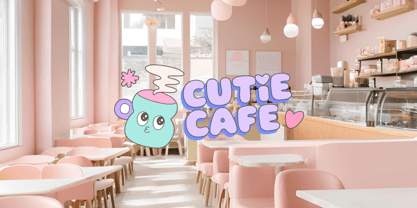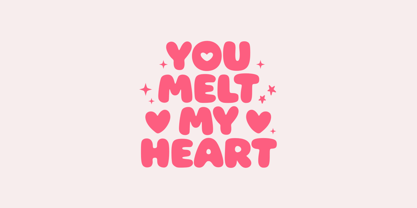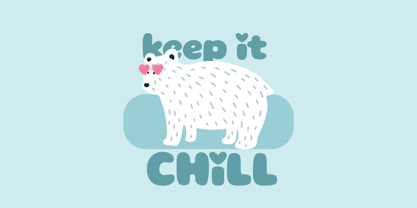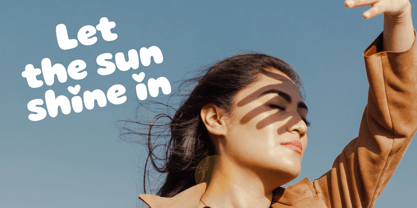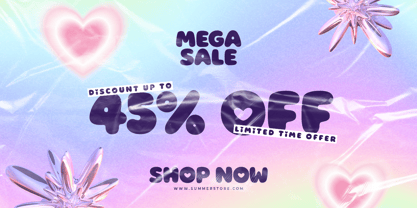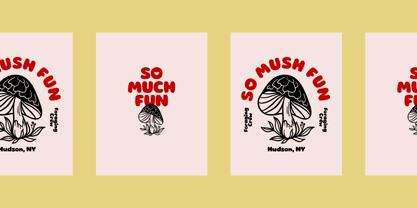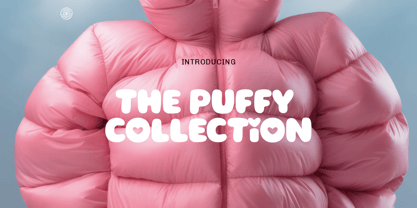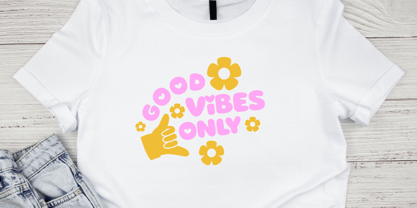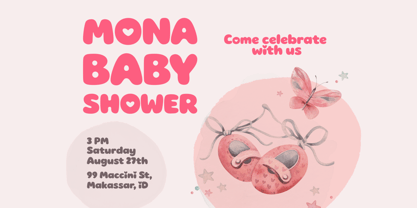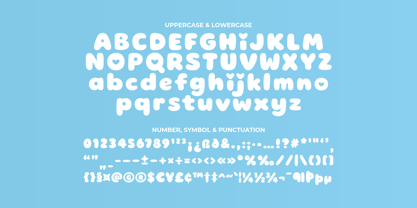
Bubble Hugshy
The Bubble Hugshy Font Family was designed by Andi Syahdang, Ainun Jinan and published by Jinan Studio. Bubble Hugshy contains 1 styles. More about this family
Bubble Hugshy is a cute and playful bubbly display font crafted to bring fun, warmth, and charm into your creative projects. Featuring soft, rounded, and chubby letterforms, this font delivers a friendly and joyful look that instantly grabs attention. Perfect for branding, logos, packaging, children’s designs, posters, social media graphics, quotes, stickers, merchandise, and any project that needs a cheerful and lovable touch. Bubble Hugshy keeps designs bold, readable, and full of personality. Bubble Hugshy is the perfect choice when your design needs to feel happy, friendly, and unforgettable. Features A set of uppercase and lowercase glyphs Number, symbol, and punctuation Multilingual Support
Bubble Hugshy